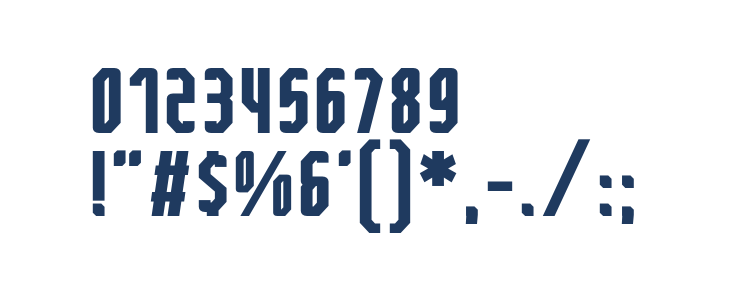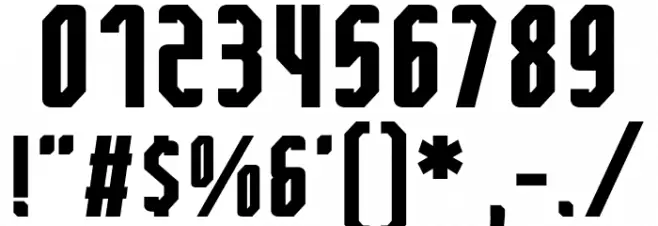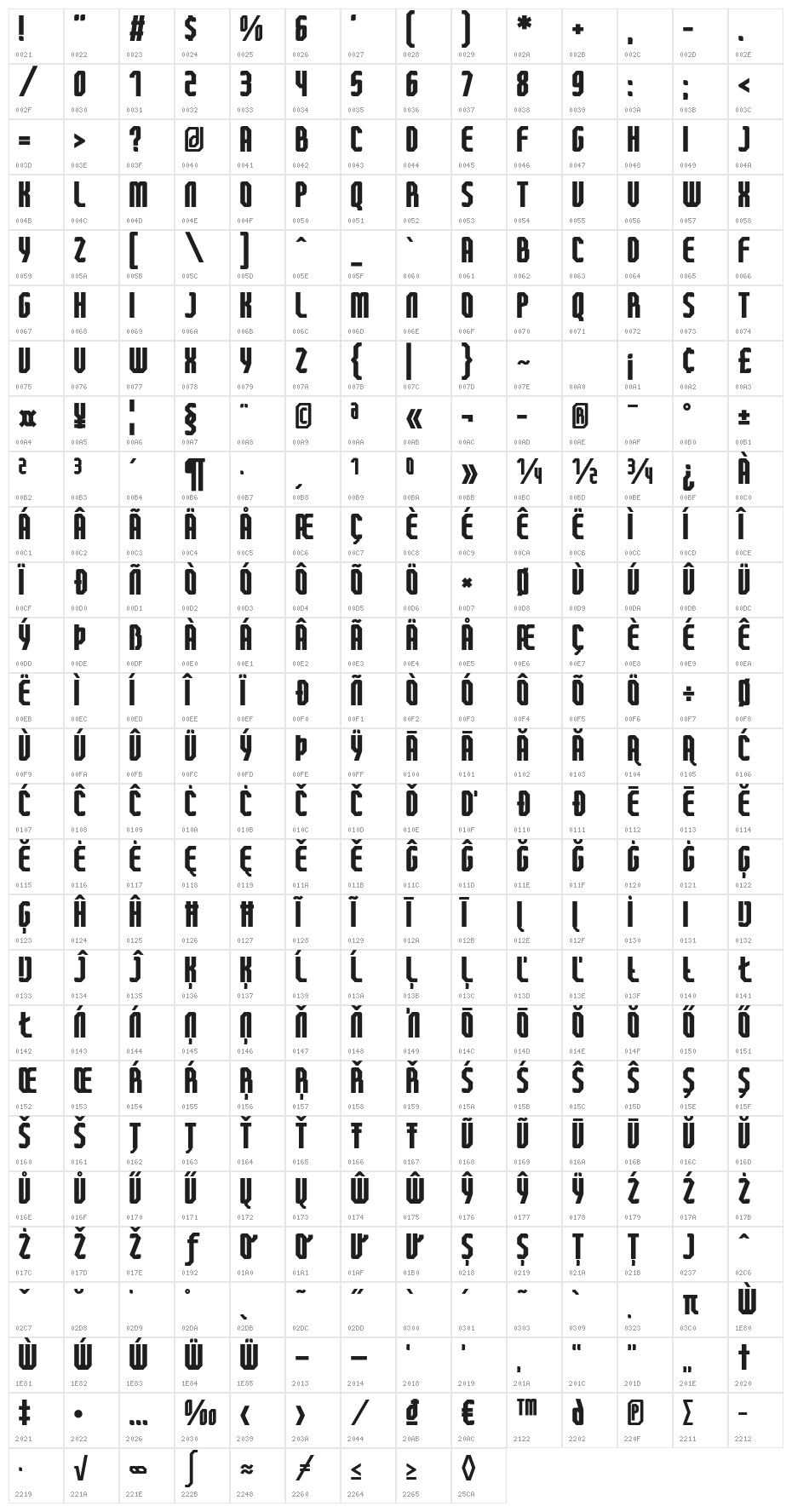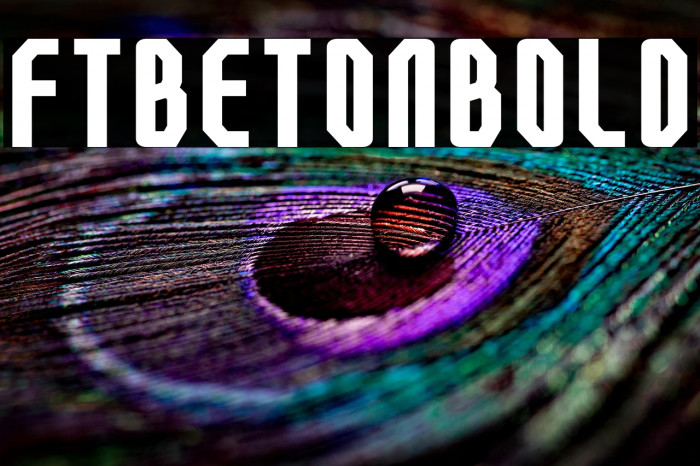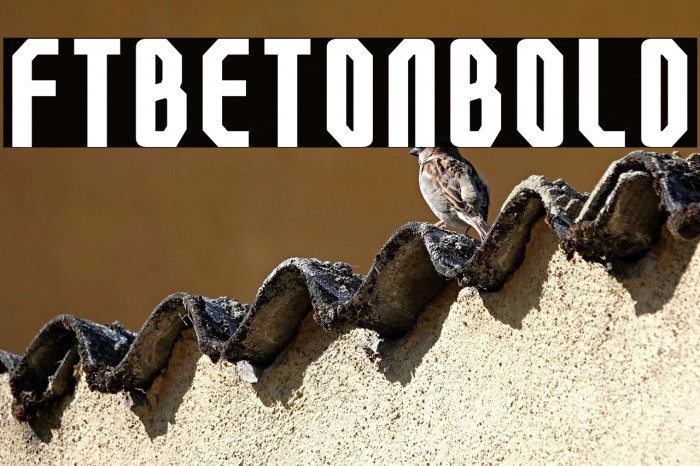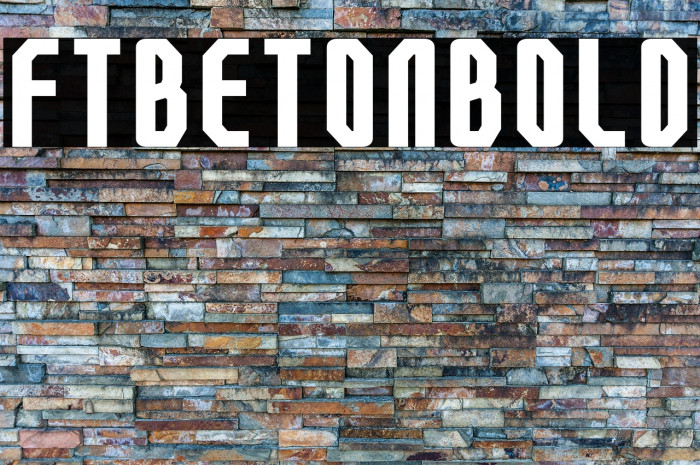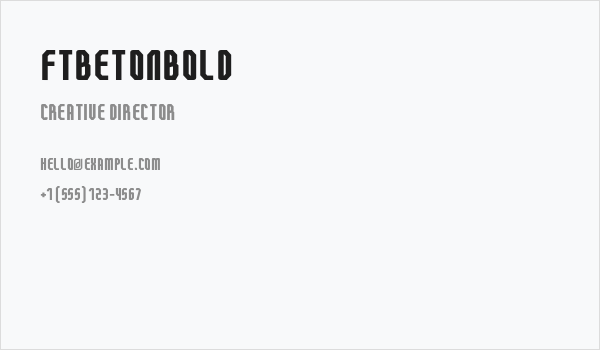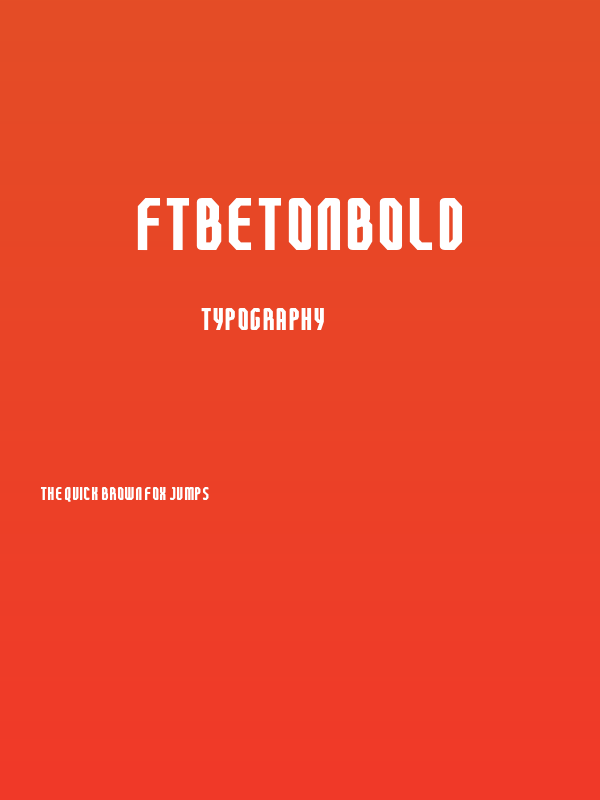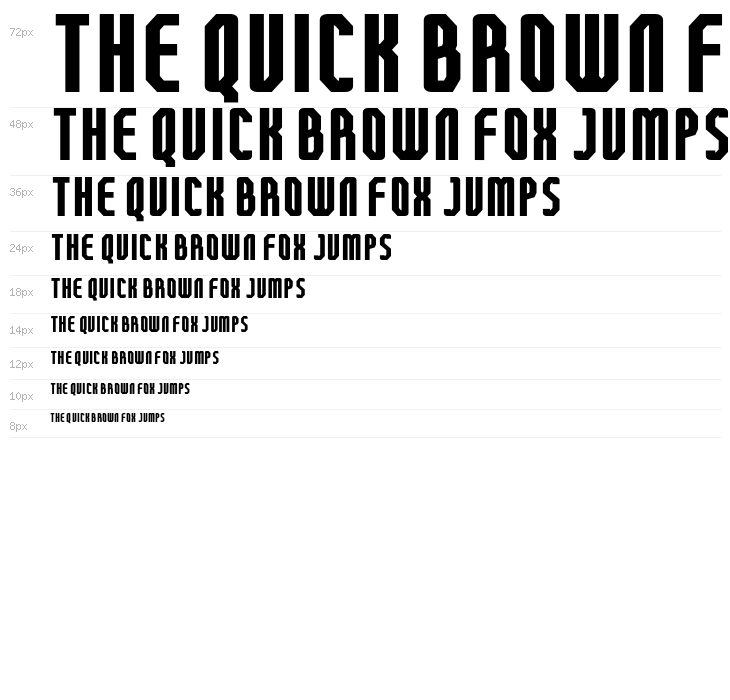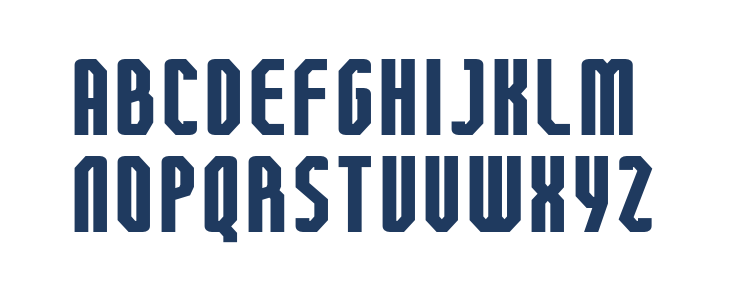
FTBetonBold Font
This font features a bold and geometric design with a strong presence. The characters are constructed with thick, straight lines and sharp angles, giving it a modern and industrial feel. The uppercase letters are particularly striking, with a uniform height and width that creates a cohesive look. The lowercase letters maintain the same boldness, ensuring readability while retaining the font's distinctive style. The numerals are equally bold, with a consistent weight that matches the alphabetic characters. Special characters are included, maintaining the same geometric and bold characteristics. Overall, this font is designed to make a statement, suitable for projects that require a strong visual impact.
A bold, geometric font with a modern and industrial style from Regular fonts.
- Proposed Projects: Ideal for branding, posters, headlines, and any design requiring a strong, impactful typeface.